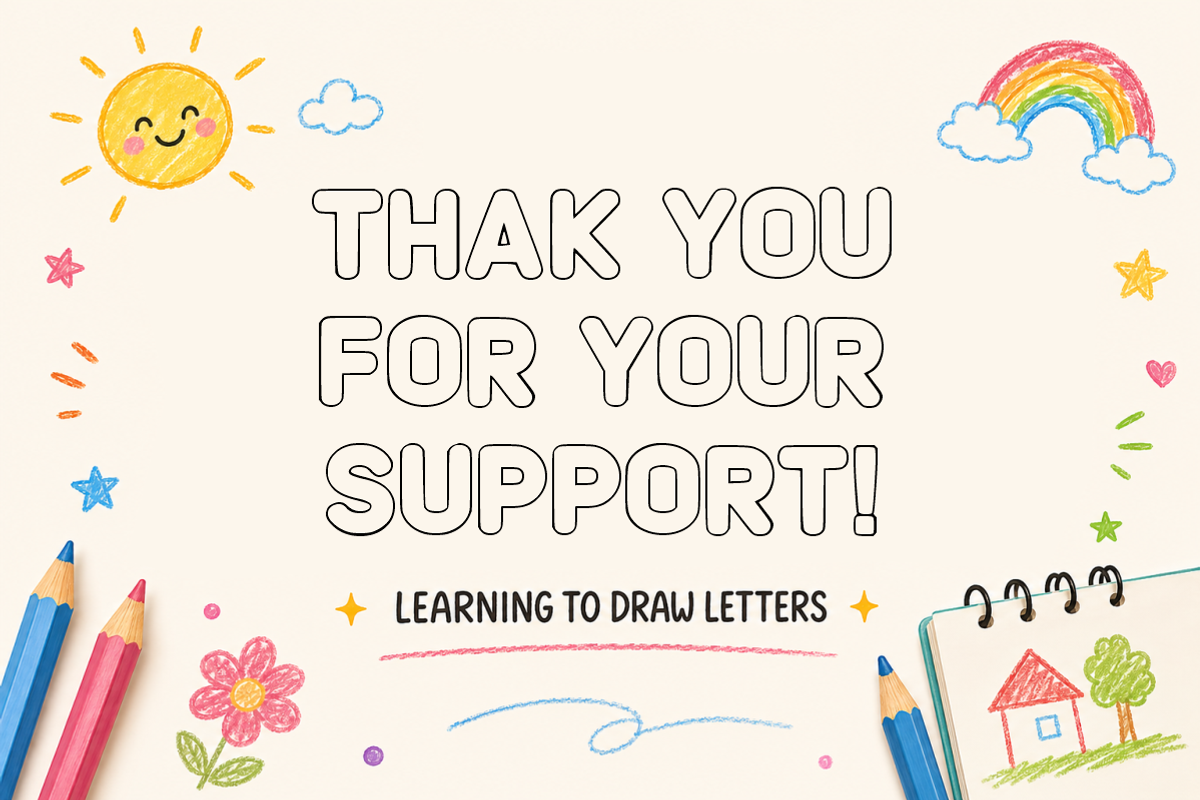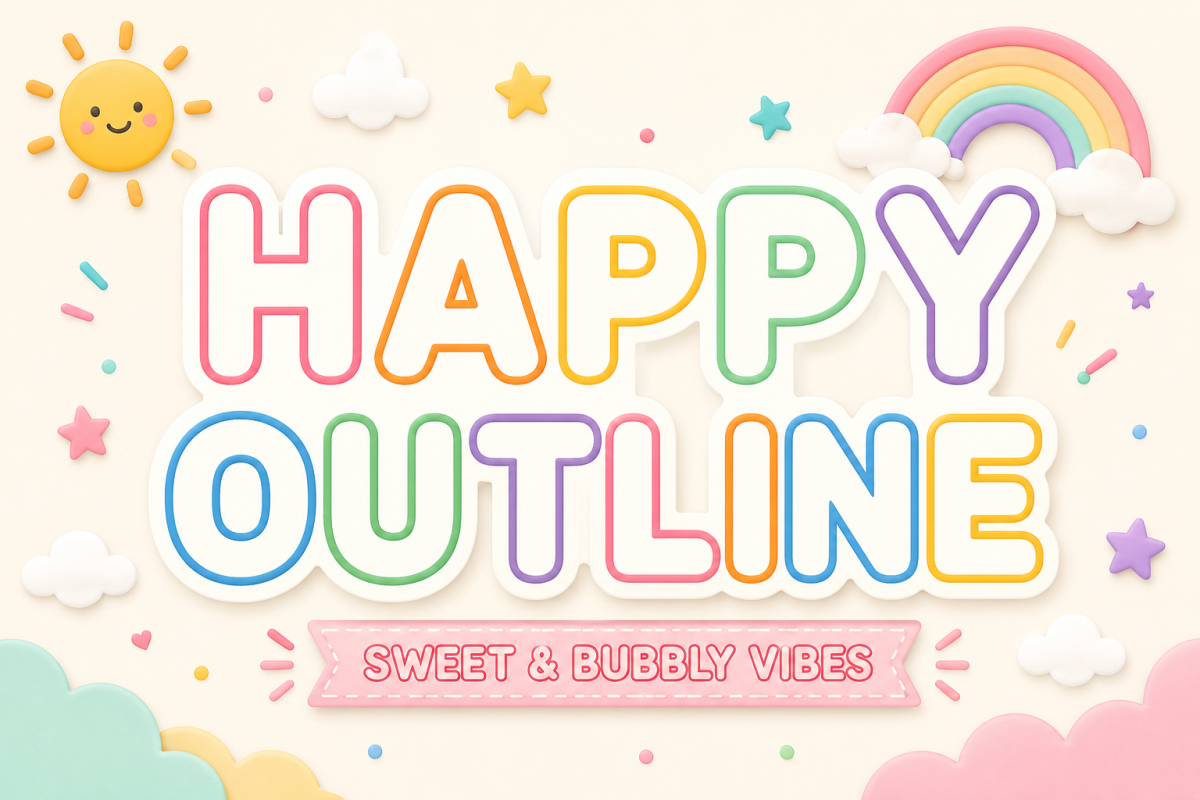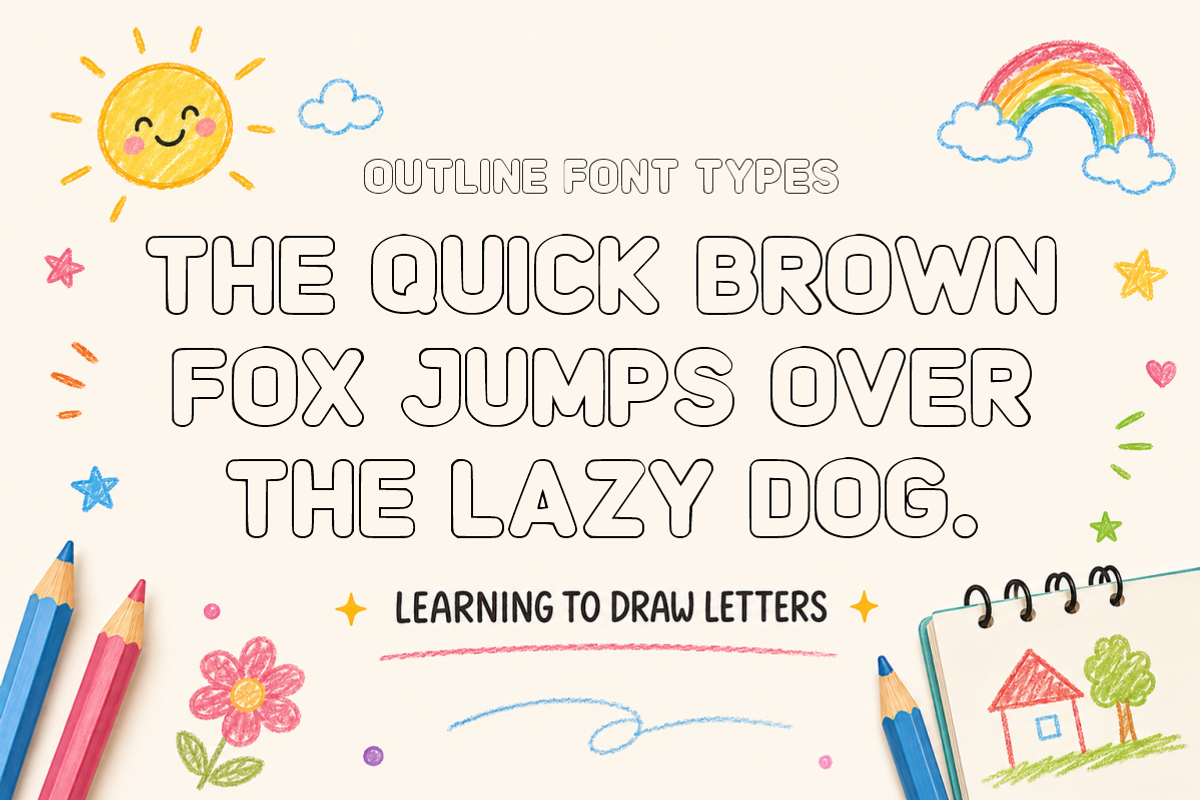
Happy Outline - Bubbly Kids Font
Happy Outline - Sweet & Bubbly Kids Font
Happy Outline is a sweet, cheerful, and bubbly outline display font featuring ultra-smooth rounded letterforms and clean hollow centers. Perfect for color layering, children's coloring pages, sweet nursery decor, and playful craft projects, this cute font brings instant joy and friendly vibes to all your creative work. Every character is cleanly vectorized to guarantee high-resolution prints and smooth, effortless cutting on Cricut and Silhouette machines.
Ideal For:
Cricut, Silhouette, and HTV vinyl cutting projects for kids' t-shirts, sweet tote bags, custom mugs, and nursery wall art
Teachers Pay Teachers (TpT) authors creating classroom bulletin boards, student reward tags, activity sheets, and coloring pages
Etsy sellers designing birthday party invitations, cute greeting cards, playful stationery, and personalized gifts
Print-on-Demand (POD) products, children's storybook titles, toy packaging, and baby merchandise
Canva template creators making school flyers, kids' party banners, and cheerful social media graphics
Custom die-cut sticker packs, planner decals, and digital scrapbooking layouts